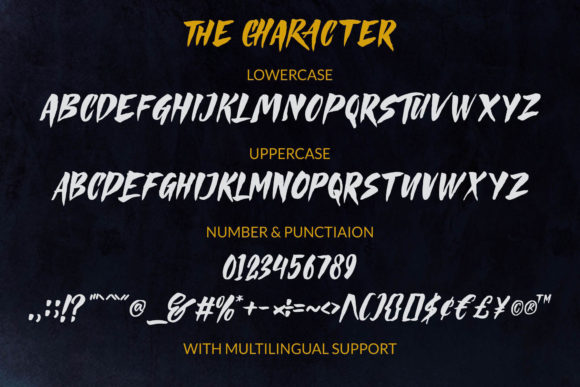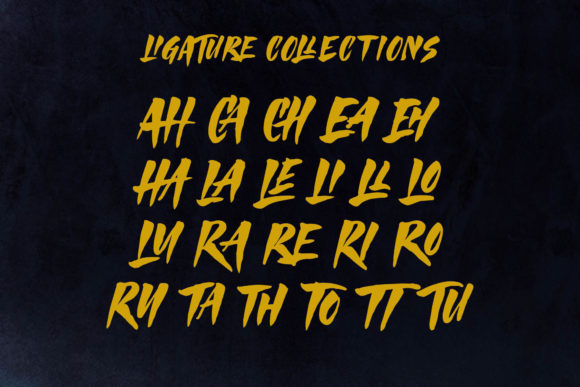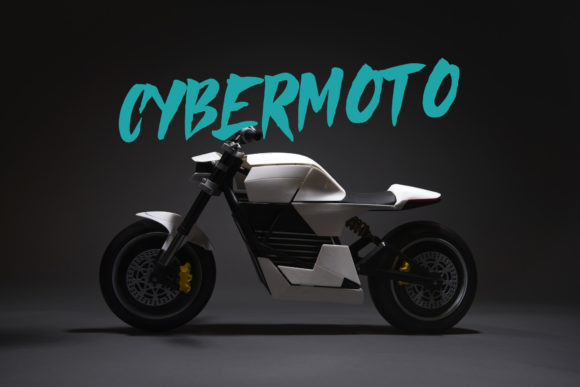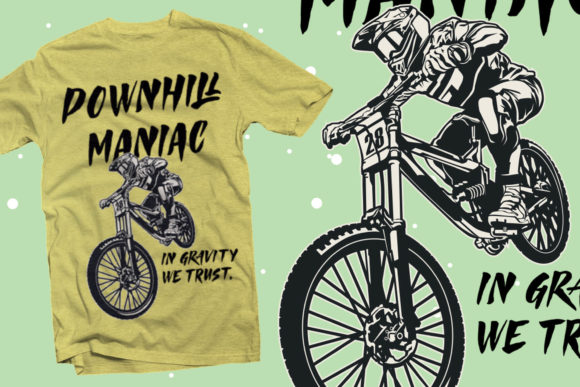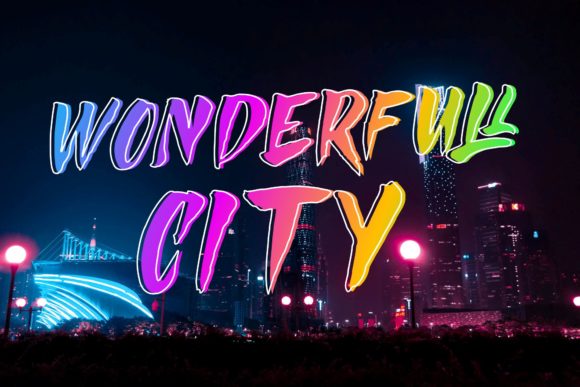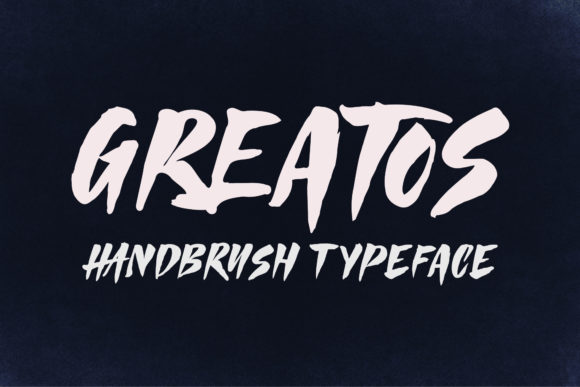
Introducing Greatos Font: The Urban Display Font that Adds a Touch of Street Art to Your Designs
Are you tired of using the same old fonts in your designs? Do you want to add a touch of urban flair to your flyers, promo materials, logos, and other creative projects? Look no further than Greatos Font, an exciting new urban display font that’s inspired by the beauty of street art and brush strokes.
The Inspiration Behind Greatos Font
Greatos Font was created with the intention of capturing the raw energy and emotion of street art. The font’s designer drew inspiration from the vibrant colors, bold lines, and expressive brushstrokes that are characteristic of street art. The result is a font that’s perfect for designers and crafters who want to add a touch of edginess and urban sophistication to their work.
Key Features of Greatos Font
So, what makes Greatos Font so special? Here are just a few of its key features:
- Urban display font: Greatos Font is designed to grab attention and make a statement. Its bold, chunky letters are perfect for headings, titles, and other applications where you want to make a big impact.
- Inspired by street art: Greatos Font’s unique style is inspired by the beauty of street art and brush strokes. This gives it a distinctive, hand-crafted feel that’s perfect for designers who want to add a touch of personality to their work.
- Perfect for a variety of design applications: Greatos Font is versatile and can be used in a wide range of design applications, including flyers, promo materials, logos, and more.
Why Use Greatos Font in Your Designs?
So, why should you choose Greatos Font for your designs? Here are just a few compelling reasons:
- Add a touch of urban flair: Greatos Font is the perfect way to add a touch of urban sophistication to your designs. Its bold, edgy style is sure to grab attention and make your work stand out.
- Stand out from the crowd: With Greatos Font, you can create designs that are truly unique and eye-catching. Its distinctive style ensures that your work will stand out from the crowd and leave a lasting impression.
- Perfect for designers and crafters: Greatos Font is a versatile font that’s perfect for designers and crafters of all levels. Whether you’re creating flyers, promo materials, logos, or other designs, Greatos Font is a great choice.
How to Use Greatos Font in Your Designs
Using Greatos Font in your designs is easy. Here are a few tips to get you started:
- Use it as a heading font: Greatos Font is perfect for headings and titles. Use it to add a bold, eye-catching touch to your flyers, promo materials, and other designs.
- Experiment with different colors: Greatos Font looks great in a wide range of colors. Experiment with different hues and combinations to find the perfect look for your design.
- Pair it with other fonts: Greatos Font can be paired with a wide range of other fonts to create a unique and eye-catching look. Try pairing it with a clean, sans-serif font for a bold and modern look.
| Author | Astageni |
Greatos Font is an exciting new urban display font that’s perfect for designers and crafters who want to add a touch of street art to their work. With its bold, chunky letters and distinctive style, Greatos Font is sure to grab attention and make your designs stand out. So why wait? Download Greatos Font today and start creating designs that are truly one-of-a-kind.
Whether you’re a seasoned designer or just starting out, Greatos Font is a great addition to your font library. Its versatility and unique style make it perfect for a wide range of design applications, from flyers and promo materials to logos and more. So go ahead, get creative, and see what amazing designs you can create with Greatos Font.